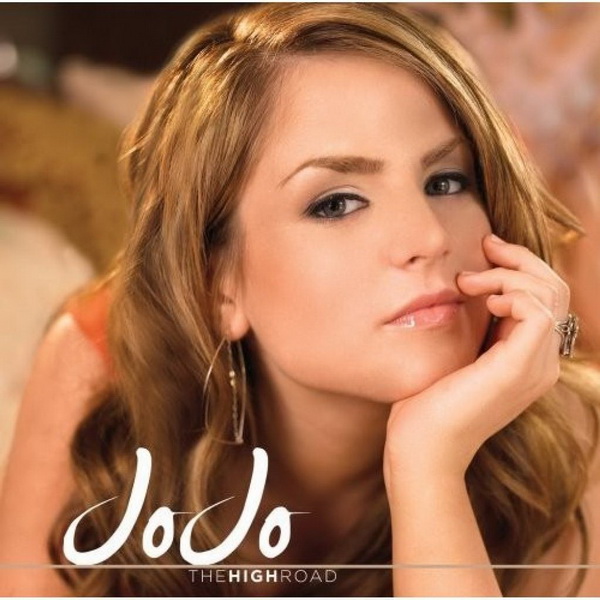
The High Road Font
Fonts in UseThe High Road is the second studio album by American singer-songwriter JoJo, released in 2006. It features hits like "Too Little Too Late" and "How to Touch a Girl" and showcases JoJo's impressive vocal range and versatility.
The font used for "JoJo" on the album cover features calligraphic and bold lettering that resembles James Fajardo font created by James Paul Fajardo. This font is available for free download in the Fonts Used Section. The album title is similar to Gotham Light font by Hoefler & Co.